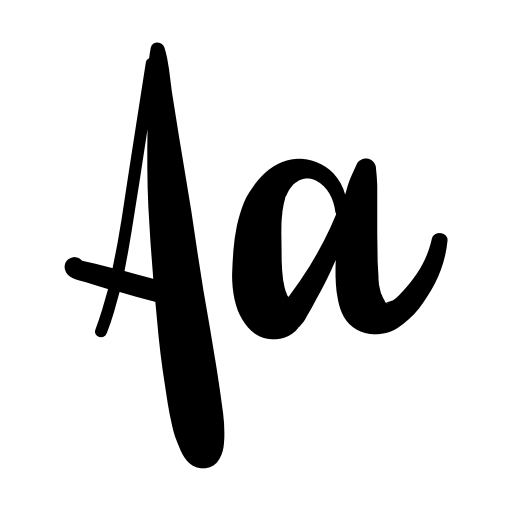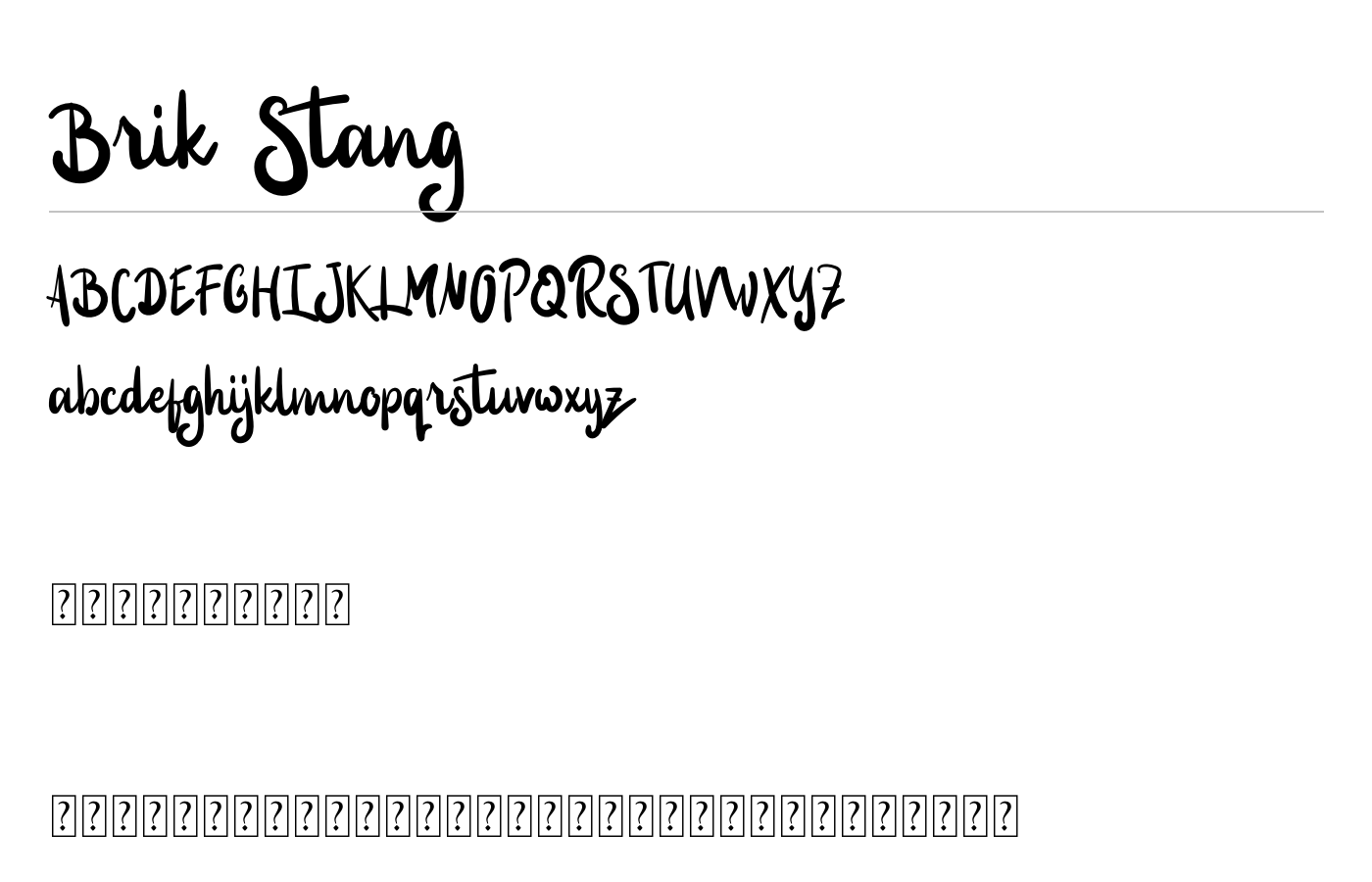
Brik Stang is a lively and casual handwritten script font that features smooth, rounded strokes with a playful yet readable style. Its slightly condensed forms and warm, informal feel make it ideal for creative projects, branding, and invitations that seek a friendly and approachable touch. This font works best in headlines and display settings where a personal and artistic vibe is desired.
Brik Stang Font
About Brik Stang Font
| Font family | Brik Stang Font |
| Designer | Achmad Solikhin - Semarang 2019 |